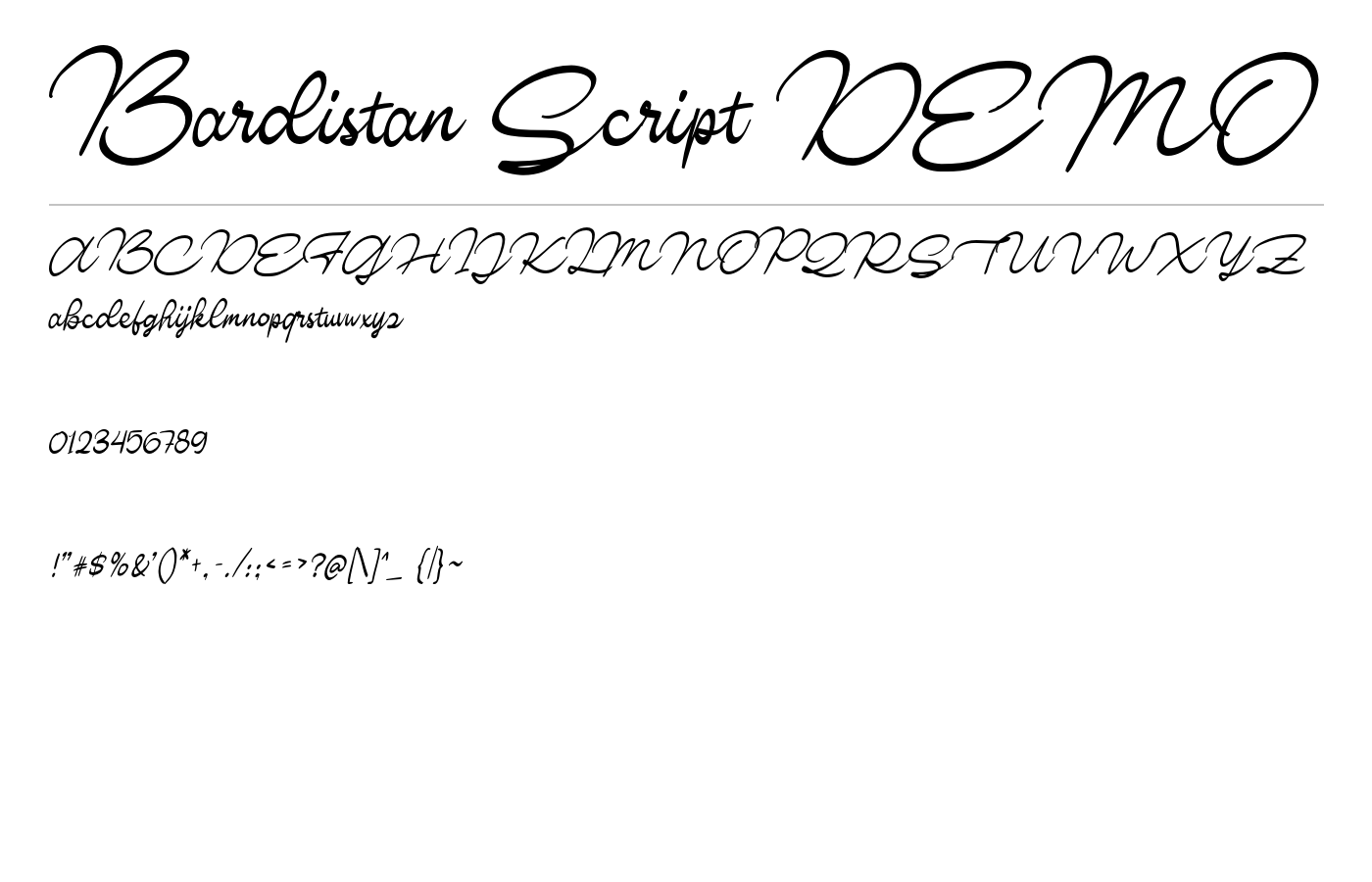
Bardistan Script DEMO is an elegant and flowing script font with a smooth, calligraphic style that offers a refined yet approachable personality. Its delicate, slightly condensed letterforms and consistent stroke weight make it ideal for sophisticated branding, invitations, and decorative headlines where a touch of grace and charm is desired. This font works beautifully in design projects that aim to convey elegance and creativity without sacrificing readability.
Bardistan Script DEMO Font
About Bardistan Script DEMO Font